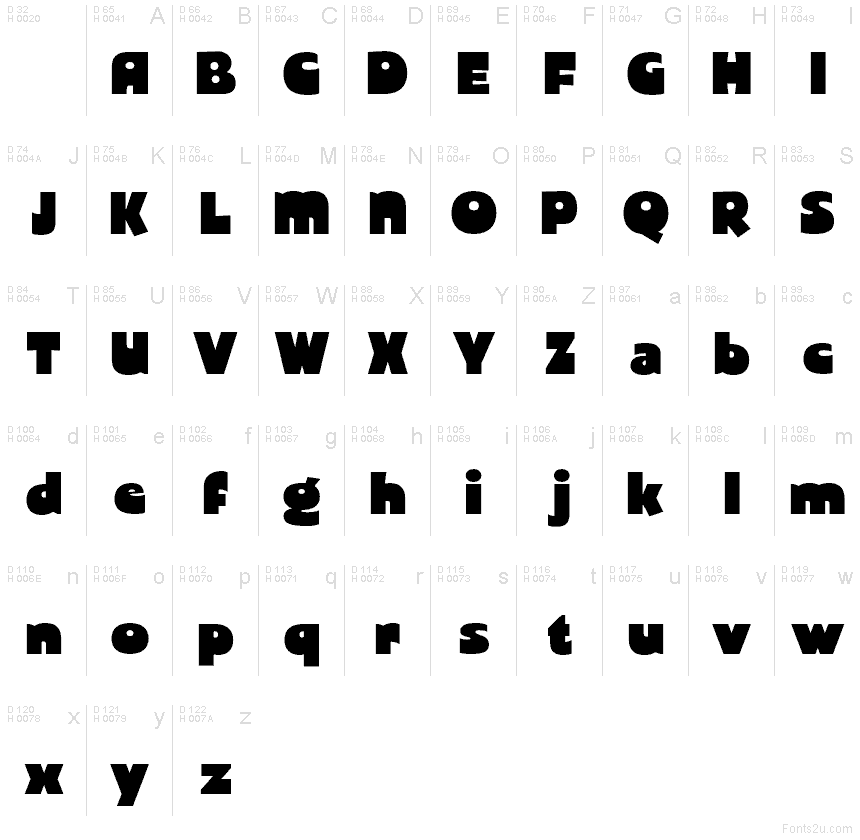
CS Bibury Regular Demo
CS Bibury font by Craft Supply Co. is a free bold groovy display font. It stands out with thick, cushioned strokes and pillowy curves that feel soft to the touch, yet land with confident weight. The rounded counters and gently scooped apertures create a buoyant rhythm, while the tight, even spacing keeps headlines compact and punchy without feeling cramped.
Using CS Bibury, bold titles snap to attention on posters, album covers, branding, merch, event flyers, and social graphics. The chubby silhouettes read quickly at a glance and carry a playful, retro swagger that still feels clean. This free font shines on large scales; try pairing it with a narrow sans or lightweight grotesk for body copy to balance its plush volume.